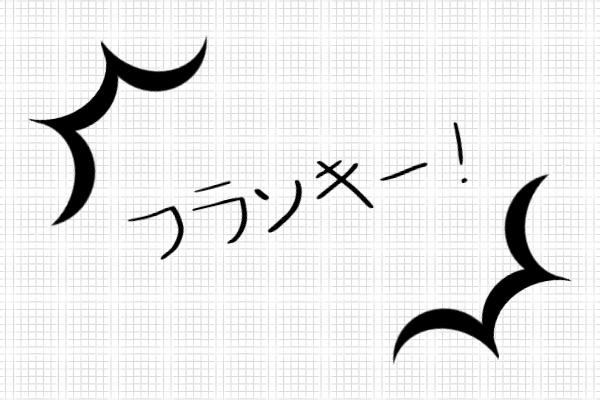
Step into a world where characters dance and emotions flow with every stroke. The Flunkie Japanese Font, a masterpiece crafted by Marlee Pagels, is not just a collection of characters; it's an artistic expression that breathes life into your digital creations.
Unleash your creativity and dive into the realm of dingbats, where symbols and abstract forms intertwine to tell captivating stories. With the Flunkie Japanese Font, your designs will radiate with a touch of whimsy and intrigue, leaving a lasting impression on your audience.
Imagine your social media posts, website designs, and digital art coming alive with the playful energy of the Flunkie Japanese Font. Its meticulously crafted characters exude a sense of fun and spontaneity, inviting your viewers on a visual journey that's both engaging and unforgettable.
Let your imagination soar as you explore the limitless possibilities of the Flunkie Japanese Font. Create eye-catching logos that resonate with your brand's unique personality, design posters that captivate and inspire, or craft invitations that set the tone for an unforgettable event.
The Flunkie Japanese Font is more than just a font; it's an experience. It's a way to tap into your creative genius and produce designs that ignite emotions and leave a lasting impact. Embrace the beauty of Japanese dingbats and let your imagination run wild. The Flunkie Japanese Font is your gateway to a world of endless creative possibilities.
- A captivating collection of dingbats, symbols, and abstract forms
- Perfect for adding a touch of whimsy and intrigue to your designs
- Ideal for social media posts, website designs, digital art, logos, posters, and invitations
- Unleash your creativity and produce designs that ignite emotions